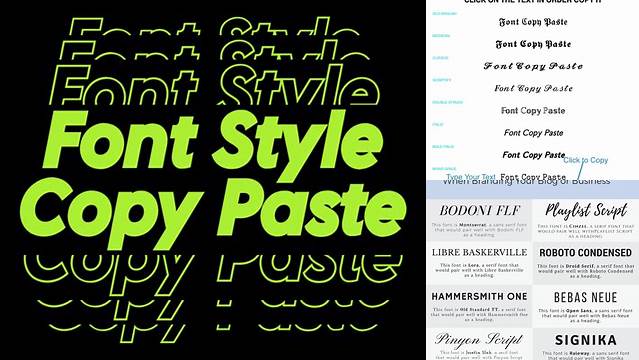
Different Font Styles: Copy & Paste Guide
Hey guys! Ever wanted to spice up your text with some cool font styles but didn't know how? Well, you're in the right place! This guide is all about different font style copy paste, making it super easy for you to add flair to your social media posts, documents, and more. We'll cover everything from how it works, where to find these fonts, and even some cool tips and tricks to make your text stand out. So, let's dive in and get those fonts flowing!
The Magic of Different Font Style Copy Paste Explained
So, what exactly is different font style copy paste? Basically, it's the art of using special characters and Unicode symbols to create text that appears to be in a different font style, even though it's still just regular text. Think of it as a clever trick that allows you to bypass the limitations of standard font choices on platforms that don't offer custom font options. Instead of selecting a font from a dropdown menu, you're using a character set that visually represents a different style. It's like having a secret stash of fonts ready to go, without any complicated installations or software downloads. The beauty of this method lies in its simplicity and versatility. You can instantly transform your plain text into something eye-catching and unique, whether you're crafting a tweet, updating your Instagram bio, or adding some pizzazz to your email signature. And the best part? It's incredibly easy to do! All you need is a font generator, a bit of copy-pasting, and a dash of creativity. You'll be amazed at how quickly you can level up your text game and make your words pop. We're talking bold, italic, cursive, monospace, and even some wild, decorative styles that will grab attention instantly.
When using different font style copy paste, remember that the actual font isn't changing. Instead, the characters themselves are being replaced with visually similar symbols from Unicode. This means that while the text may appear different, it's still compatible with most devices and platforms. So, no matter where your text is displayed, the special characters should render correctly, giving you consistent results across the board. This is a huge advantage because it ensures that your stylish text will look the same whether someone is viewing it on a phone, a tablet, or a computer. It's a hassle-free way to add personality to your written content and make a lasting impression on your audience. It is worth noting that the availability of certain font styles depends on the character set available on a particular generator, so the selection will vary slightly from tool to tool. It's always a good idea to experiment and find a generator that offers the styles you like best and consider them when you use different font style copy paste.
Unlocking the Secrets: How Different Font Style Copy Paste Works
Let's crack the code behind different font style copy paste! At its heart, the technique uses the magic of Unicode characters. Unicode is a vast character encoding standard that assigns a unique number to every character, symbol, and punctuation mark used in writing systems worldwide. This means that instead of relying on installed fonts, you're actually using pre-defined symbols that mimic different font styles. It's like having a whole library of pre-designed glyphs at your fingertips. When you type in your text and generate the styled version, the generator swaps out the regular characters with their Unicode equivalents. These equivalents are designed to look like various fonts like bold, italic, cursive, and more. The result? Text that appears to be in a different font style, even though it's technically still using standard characters. This approach is brilliant because it sidesteps the font compatibility issues that can plague traditional font usage. Since Unicode characters are universally supported, your styled text should display correctly on almost any device or platform.
Think about it like this: You have a set of building blocks (the Unicode characters), and you're assembling them to create the illusion of different fonts. It's all about the visual representation, and it's remarkably effective! Keep in mind that because you're dealing with character substitutions, the text is not truly in a different font. The characters are simply styled to give the appearance of a different font. This is crucial to understand, as it affects how the text is rendered. If you try to select and edit the text in some programs, it might behave differently than if it were a standard font, since it's composed of individual symbols. Moreover, the variety of available font styles depends on the range of Unicode characters that the generator supports. Some generators offer a more extensive library than others, so you have the freedom to experiment with many generators. The best part is: with different font style copy paste, you are no longer bound by the default font options of social media platforms and other online tools. You can customize your content with unique visual styles and truly make your brand stand out!
The Best Generators for Different Font Style Copy Paste
Okay, now for the good stuff! To get started with different font style copy paste, you'll need a font generator. Luckily, there are plenty of fantastic options available online. These generators take your plain text and transform it into stylish text with just a few clicks. Here are some of the best and most popular generators you should check out, each offering a slightly different range of styles and features:
- CoolSymbol.com: This site is a treasure trove of font styles. It's super user-friendly and offers a wide variety of options, including bold, italic, cursive, monospace, and even some cool decorative styles. Just type in your text, choose your style, and copy-paste! CoolSymbol.com is a great place to start if you're a beginner, as the interface is clean and intuitive, making it easy to find the font you want. The website boasts a clean, easy-to-use interface, and an extensive selection of styles. Whether you're looking for something classic or something more eccentric, CoolSymbol.com has something for everyone. The process is super straightforward, making it an excellent starting point for beginners.
- LingoJam: LingoJam is a fantastic generator that offers a user-friendly experience and a wide variety of font options. It’s perfect for those looking for a quick and easy way to style their text. You can quickly copy and paste your text and choose from a great selection of different font styles. LingoJam supports many font styles and is easily adaptable for those who need diversity in their font selection. The website provides a seamless and reliable way to create interesting and innovative text for a wide range of uses, from social media posts to personal messaging. The website’s versatility makes it a go-to for many users.
- FontGenerator.io: If you're after variety, FontGenerator.io is your friend. It has an extensive collection of styles, including some really unique and creative options that you won't find everywhere. It's a great choice if you want to experiment and find something truly distinctive. FontGenerator.io allows you to copy and paste your text directly into the generator and view the font variations in real time. The ease of use, together with the impressive variety of font styles, makes FontGenerator.io the perfect tool for anyone who wants to stand out. Its broad spectrum of font styles includes bold, italic, monospace, cursive, and many more.
When choosing a generator, consider the range of styles offered and the user interface. Look for one that's easy to navigate and offers the styles you want to use. Also, be aware that some generators might have limitations or restrictions. So, be sure to test out a few and see which ones work best for you and different font style copy paste.
Copy-Pasting Your Way to Stylish Text: A Step-by-Step Guide
- Choose a Font Generator: Select one of the awesome generators mentioned above or find another one that suits your needs. Make sure it's a reputable source.
- Enter Your Text: Type or paste the text you want to style into the generator's input field.
- Select Your Font Style: Browse the generator's font options. Choose the style that you like best. You'll usually see a preview of your text in different styles.
- Copy the Styled Text: Once you've chosen your style, copy the generated text. Most generators have a convenient